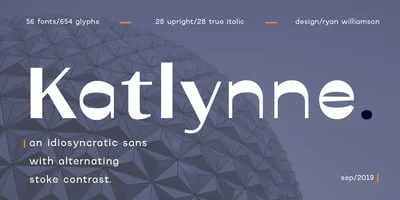
Katlynne Font
Katlynne Font is perfect for feminine brand identities, elegant fashion boutiques, sophisticated beauty campaigns, personal lifestyle blogs, graceful wedding stationery, refined cosmetic packaging, delicate jewelry branding, charming social media graphics, stylish personal monograms, and contemporary women's magazines. Its graceful character makes it ideal for projects requiring feminine sophistication and personal elegance that celebrates individual style and grace.
What makes Katlynne Font exciting is its beautiful embodiment of modern femininity through letterforms that capture the perfect balance of strength and grace characteristic of contemporary women. The font features elegant curves with refined proportions that convey sophistication and personal style while maintaining excellent readability for personal branding. Its graceful character transforms ordinary text into expressions of feminine elegance that resonate with women who value both beauty and substance in their personal and professional lives.
The Katlynne Font family includes Regular, Bold, Light, Elegant, Graceful, Stylish, and Feminine variations. Each style preserves the font's graceful essence while offering different levels of feminine sophistication and personal weight for creating authentic women-focused graphics. The comprehensive character set includes elegant symbols, feminine ornaments, graceful decorations, and stylish glyphs essential for genuine personal branding and women-oriented typography projects.
Fashion brands and feminine businesses consistently choose Katlynne Font for projects demanding authentic graceful typography solutions. The font's feminine character instantly establishes elegant credibility while ensuring clear communication across women's marketing channels. Its versatility spans from subtle graceful touches to bold statements that celebrate the strength and beauty of modern femininity and the importance of personal style expression.
Whether you're developing feminine brand identities, creating women's lifestyle materials, or designing personal communications, Katlynne Font provides the perfect combination of graceful authenticity and contemporary functionality. The font's elegantly crafted letterforms ensure genuine feminine character while maintaining excellent performance across various personal applications and women-focused business communications.
The feminine heritage of Katlynne Font makes it exceptional for creating meaningful connections with women who appreciate elegance and personal style expression. Its graceful precision and sophisticated appeal work seamlessly across traditional feminine materials and modern digital lifestyle platforms. The font performs beautifully in both large-scale fashion displays and intimate personal communications.
Embrace elegant femininity with Katlynne Font and discover how authentic graceful typography can enhance your feminine projects with genuine elegant appeal and sophisticated style. This remarkable typeface combines feminine tradition with contemporary functionality, making it indispensable for brands celebrating the beauty of modern womanhood and the importance of personal elegance in self-expression.